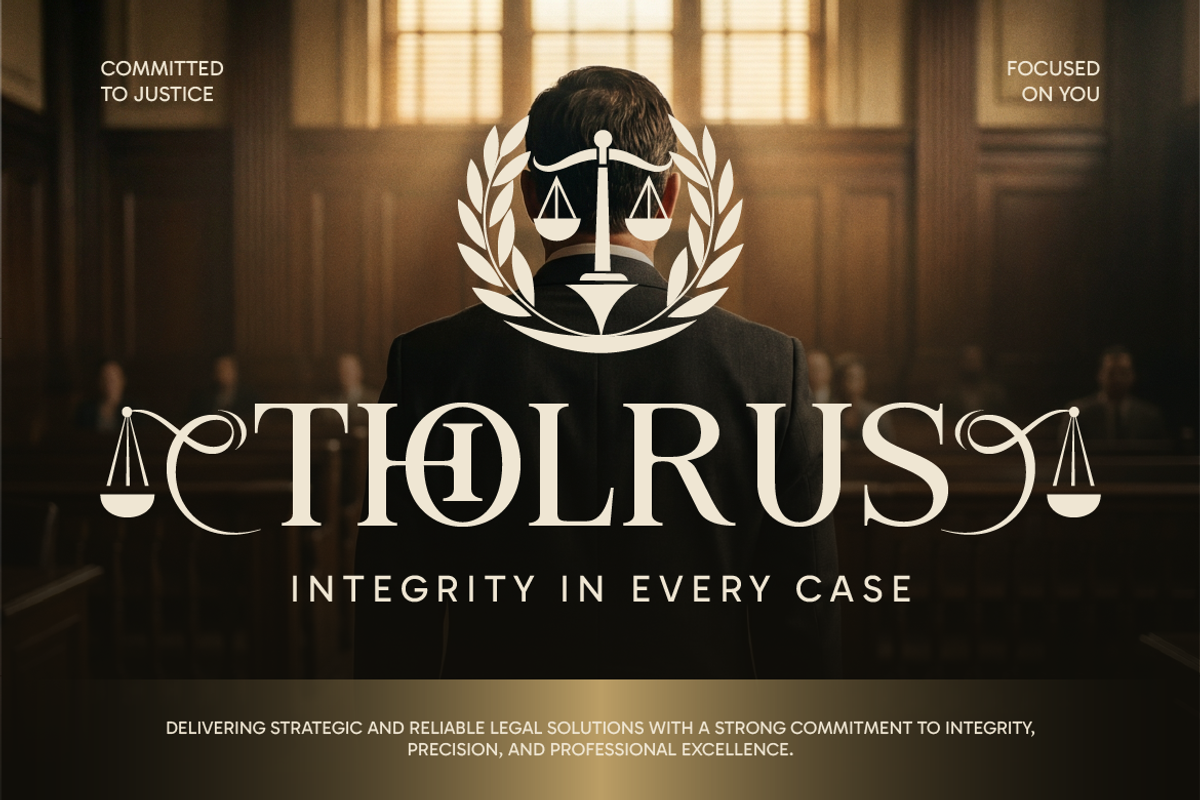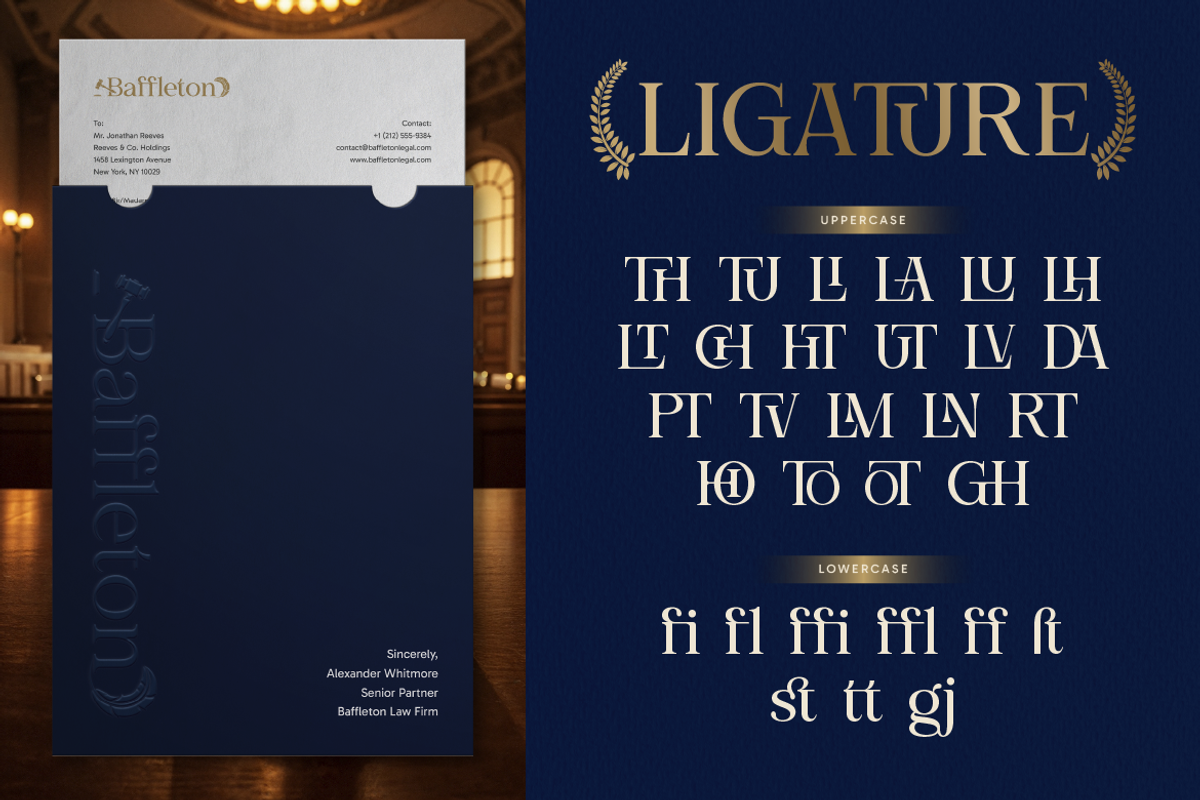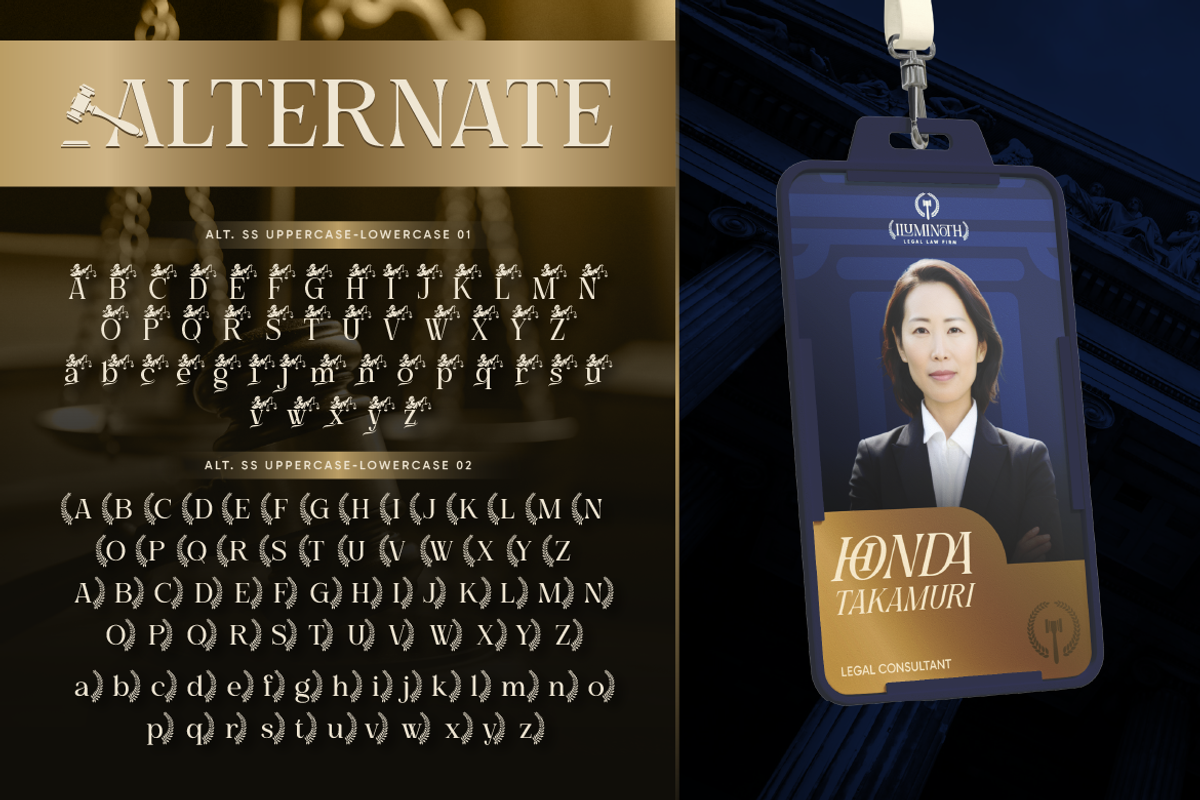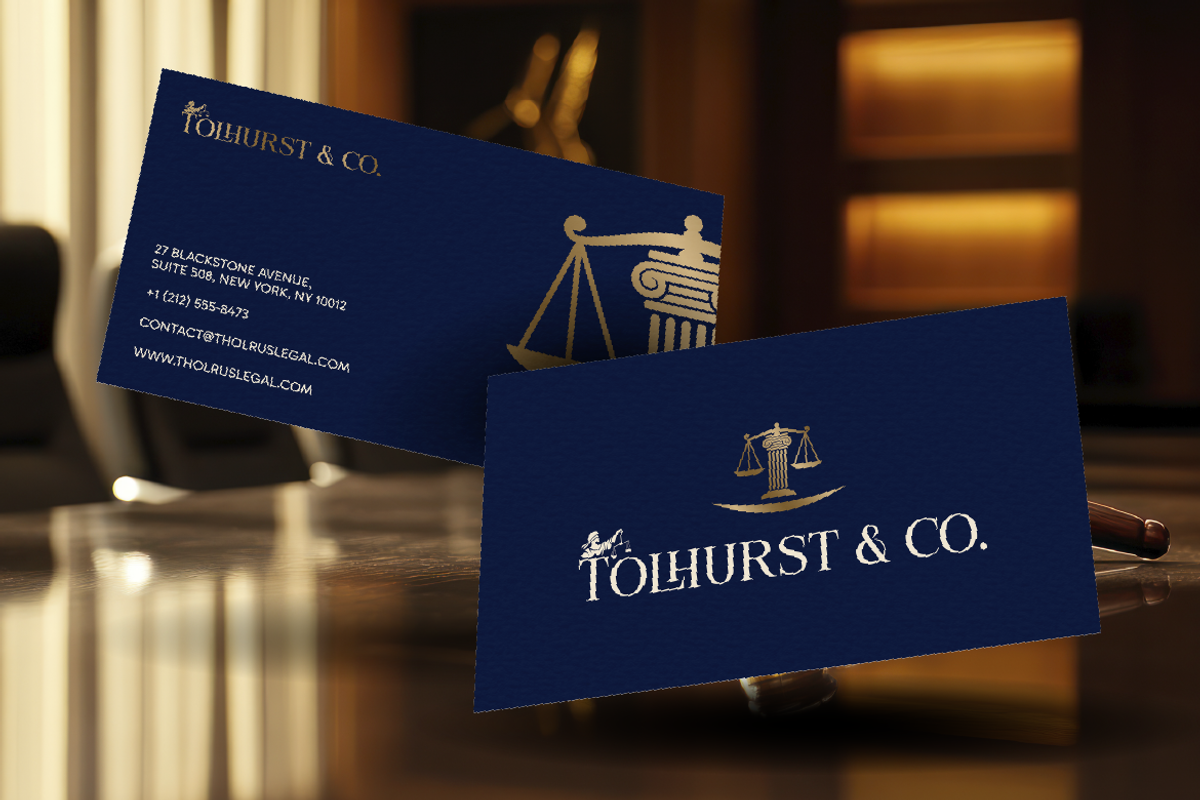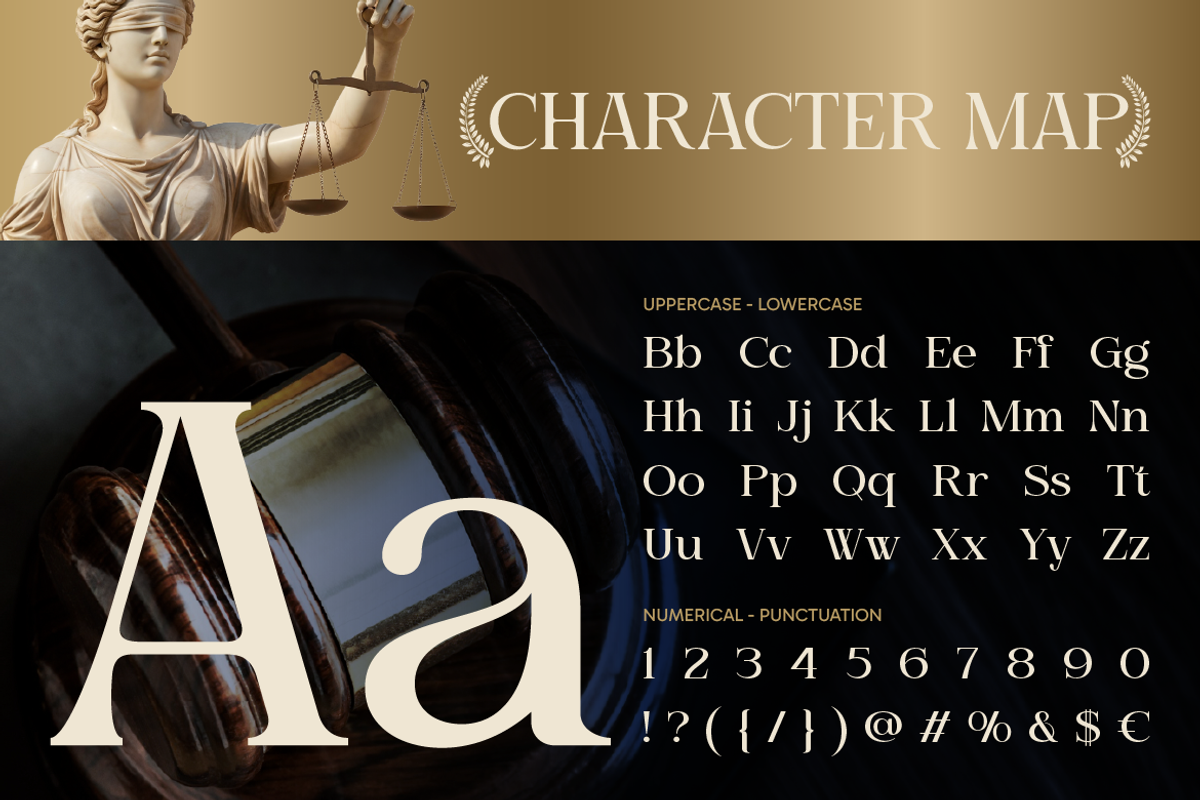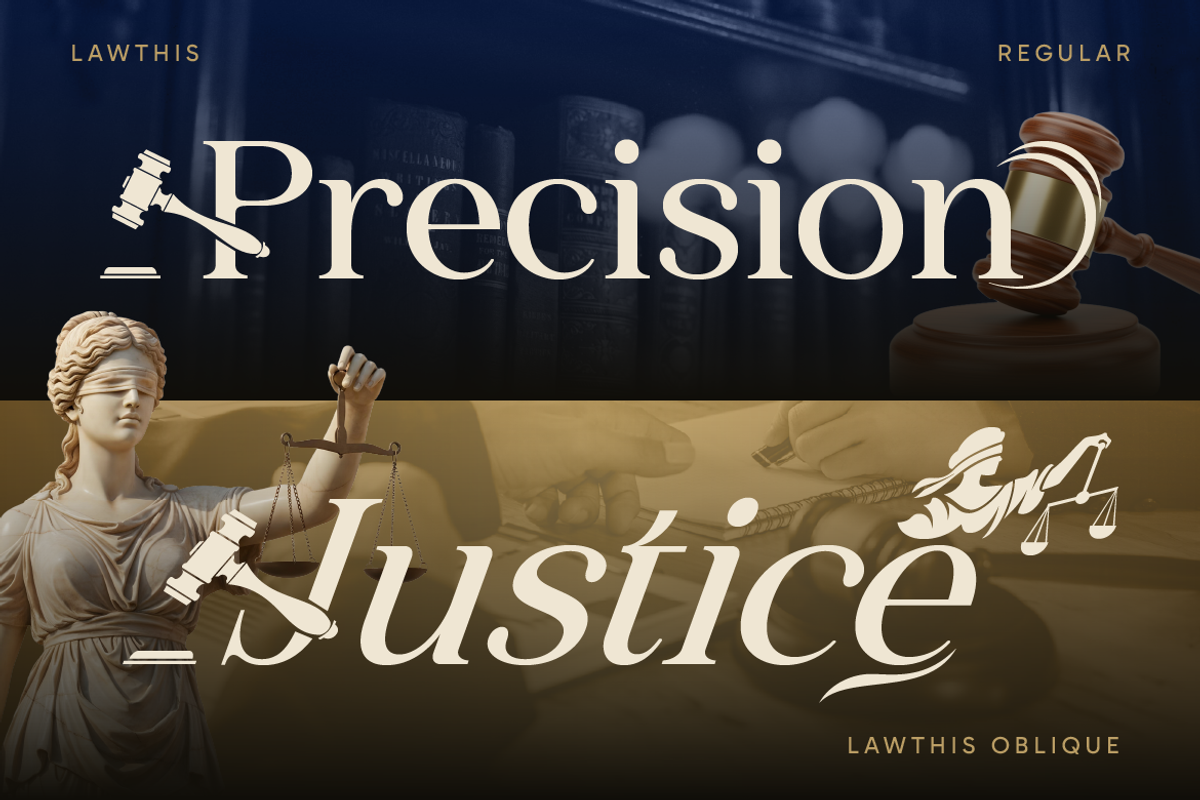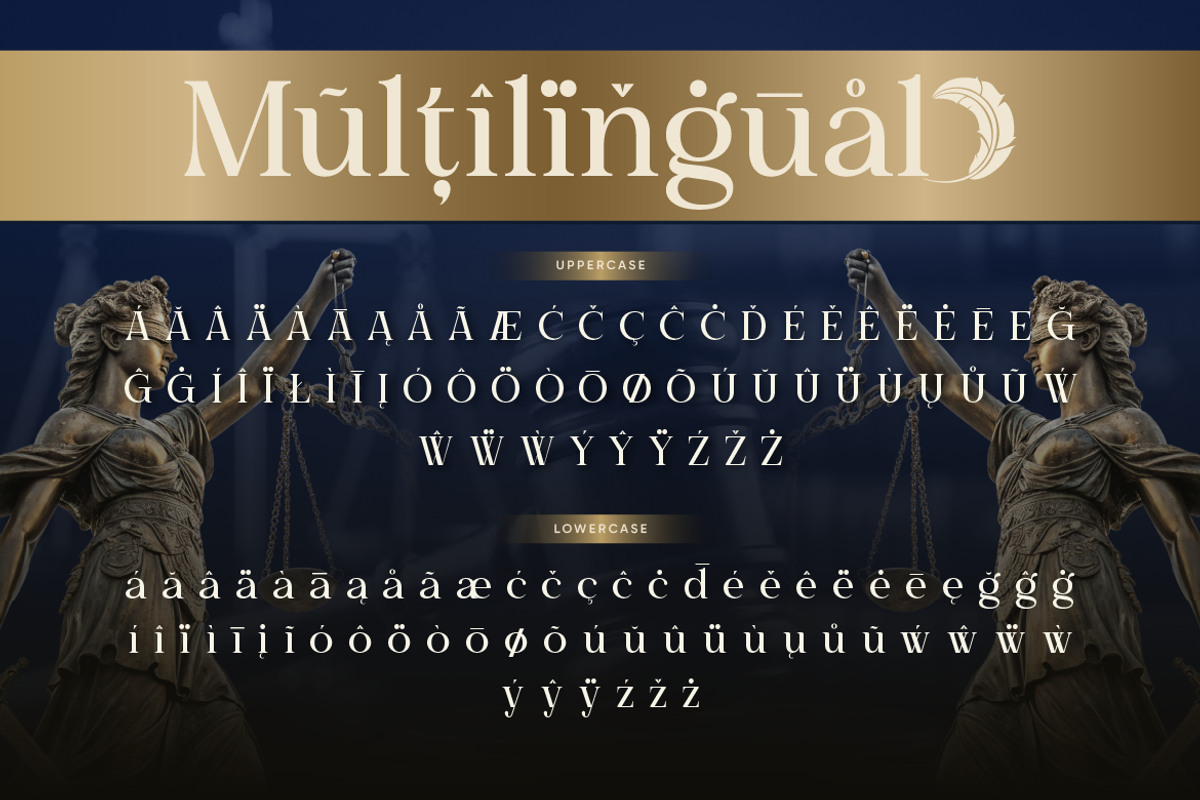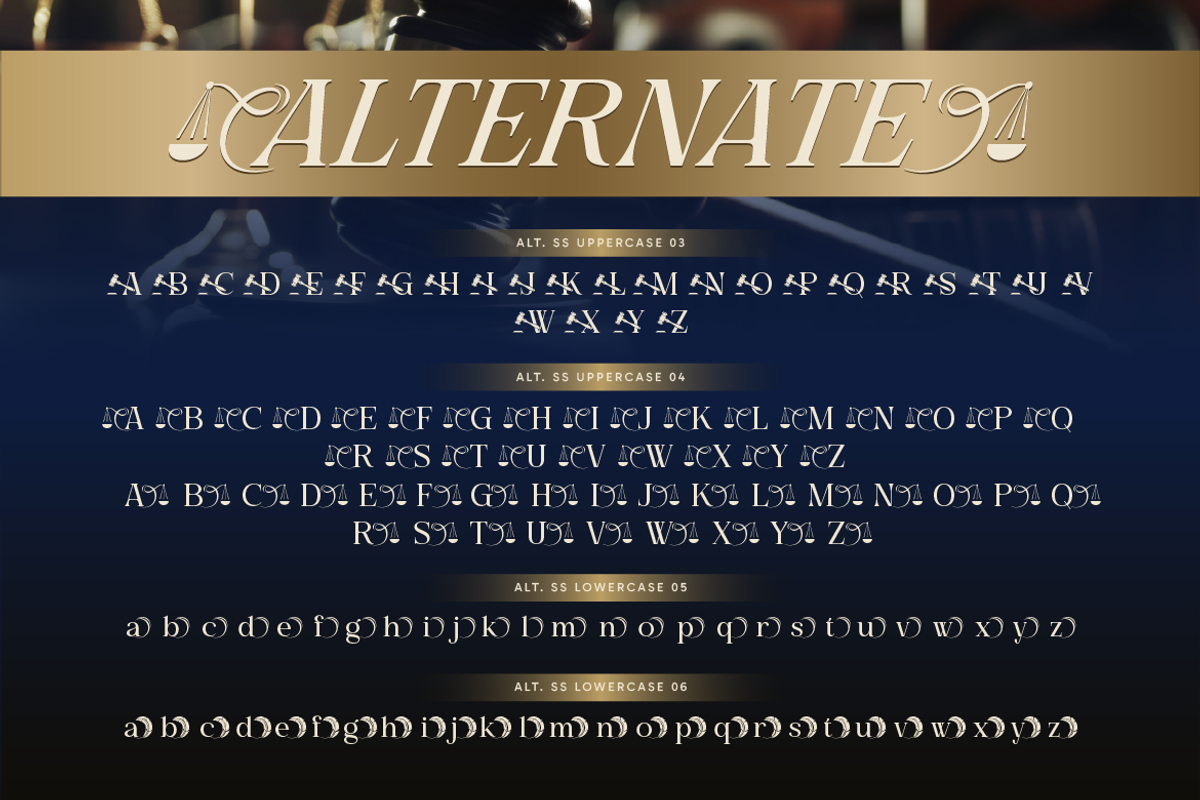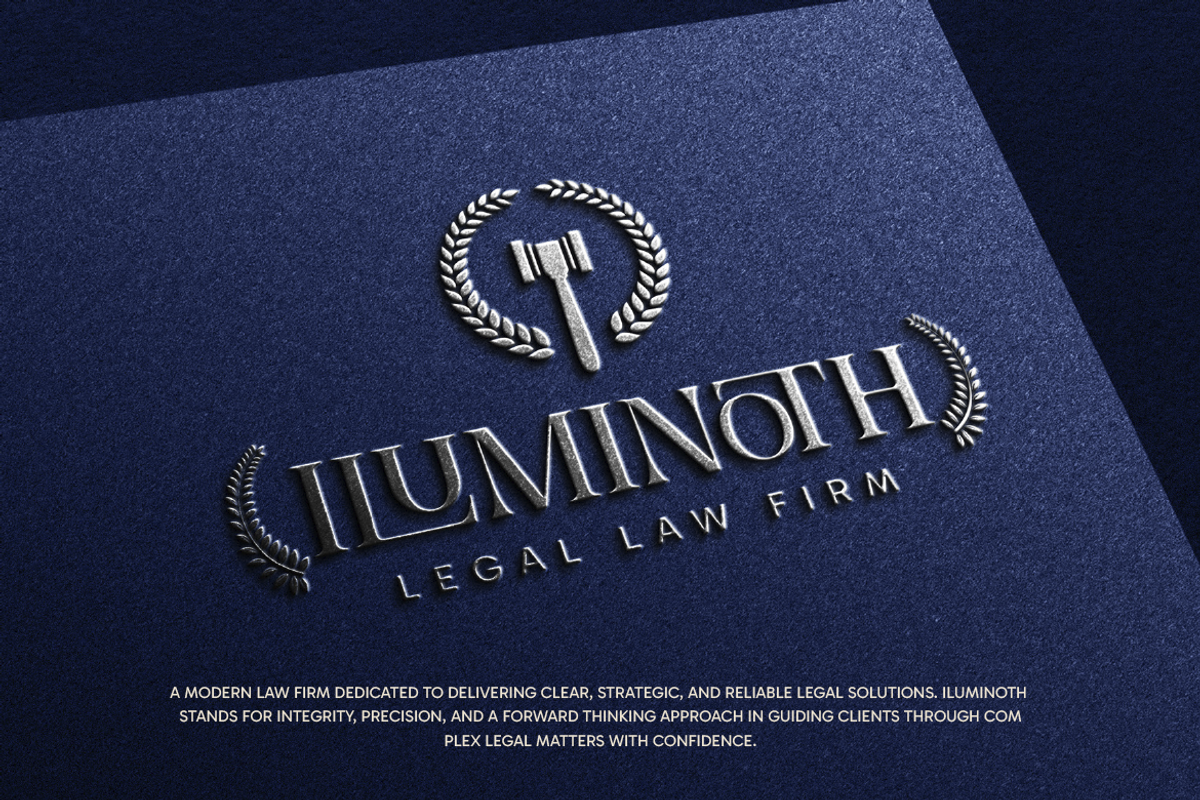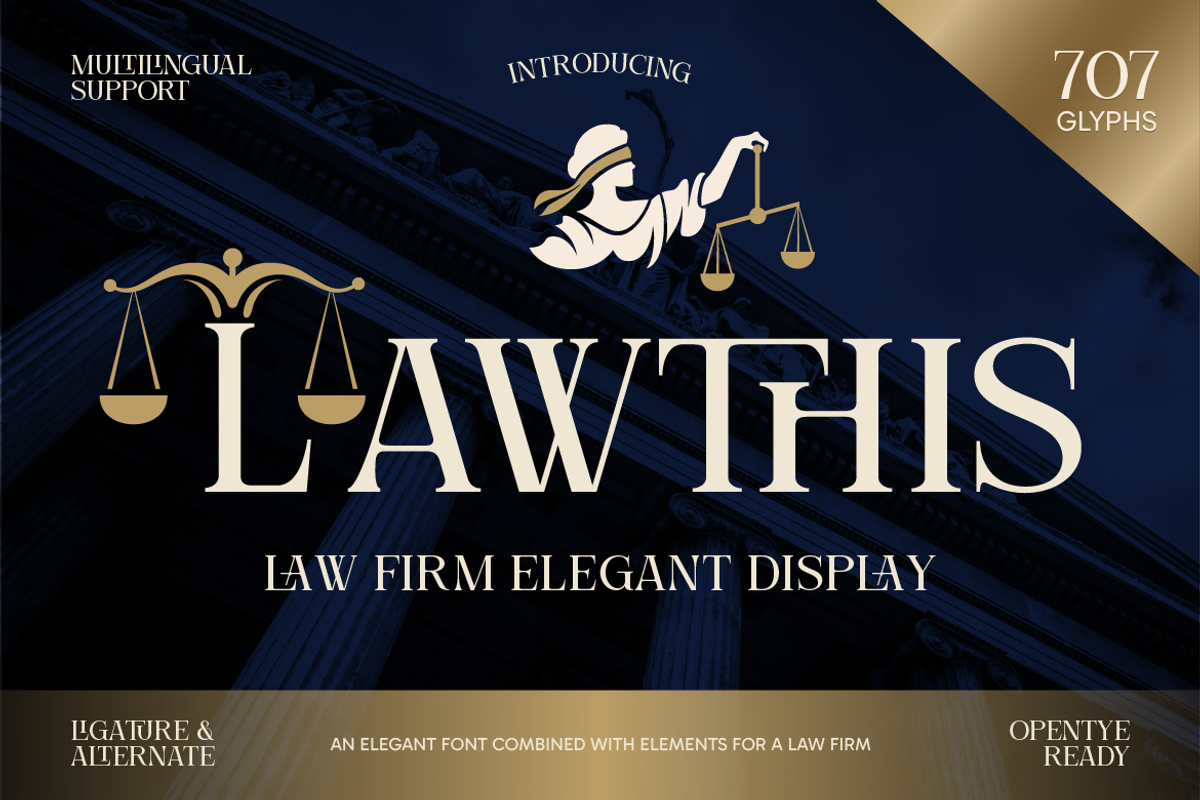
Lawthis
In a world where trust, authority, and professionalism matter the most, your typography should speak just as confidently as your brand. Lawthis is an elegant serif display font crafted specifically for legal, corporate, and luxury branding. Inspired by the timeless aesthetic of courtrooms, justice symbols, and classic law firm identities, this font delivers a strong and refined presence in every letterform. With its sharp serifs, balanced proportions, and sophisticated alternates, Lawthis is designed to elevate your projects, whether you're building a law firm identity, designing a high-end logo, or creating premium editorial layouts. What makes Lawthis truly stand out is its rich set of ligatures and stylistic alternates, allowing you to create unique and professional typography effortlessly. Every detail is carefully designed to give a sense of precision, integrity, and elegance.
Law firm branding
Legal logos & identity
Corporate branding
Editorial & magazine design
Luxury packaging
Business cards & stationery